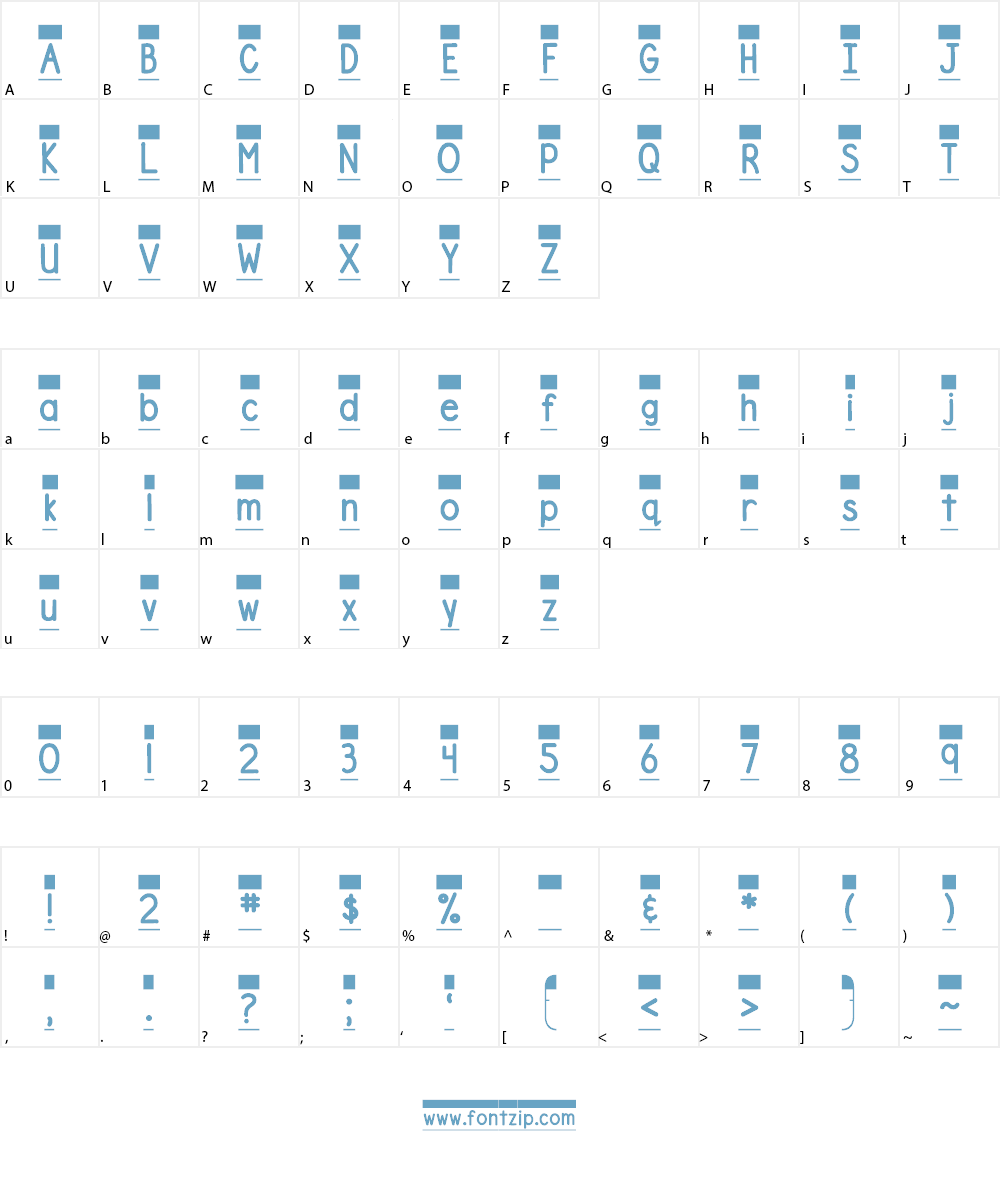
DJB File Folder Labels font is a do-it-yourself label maker, without the sticky sheets to mess with. Label all of your digital images or products with this great 'organizing' tool.
This font contains 1 .ttf/.otf font file with full upper and lower case alpha, numbers, most punctuation. See preview for details.